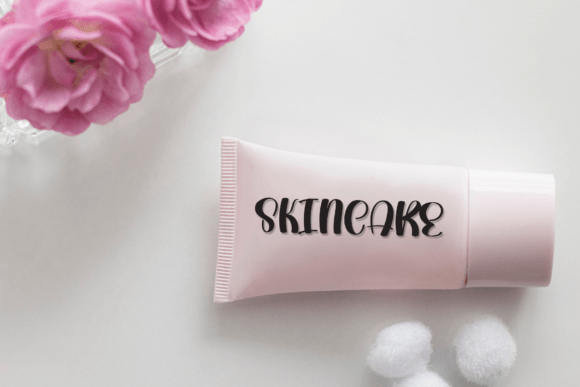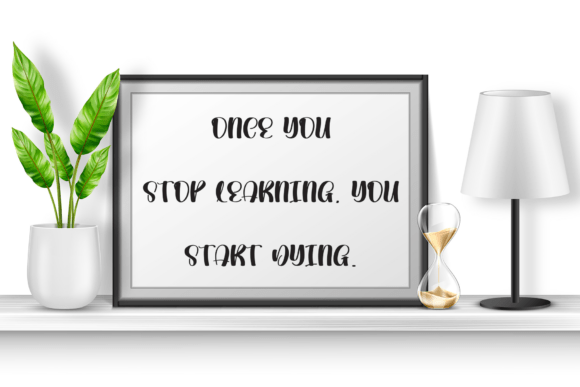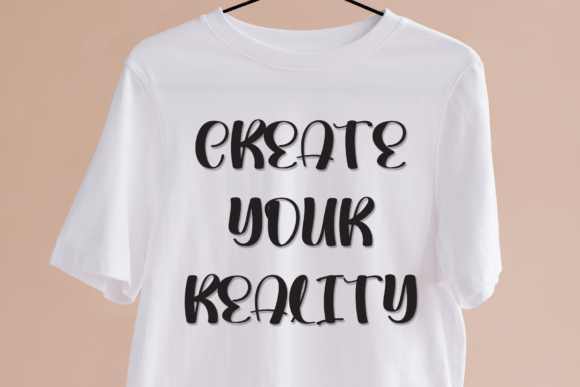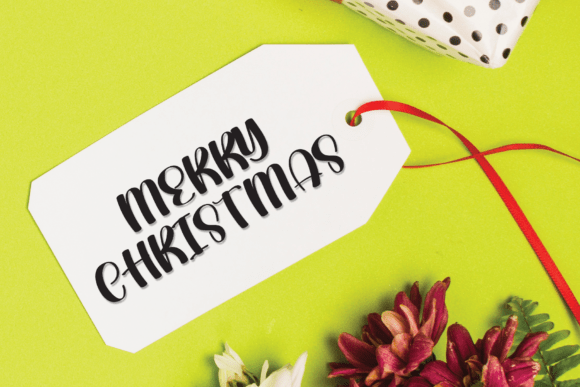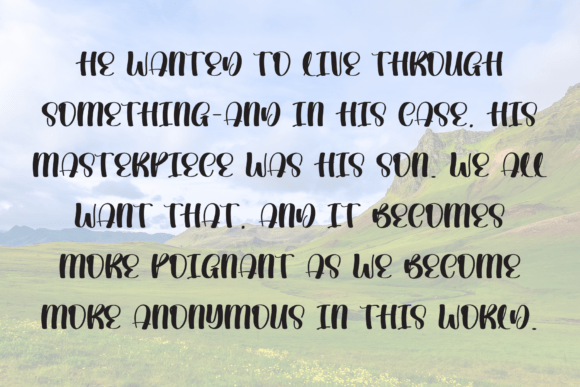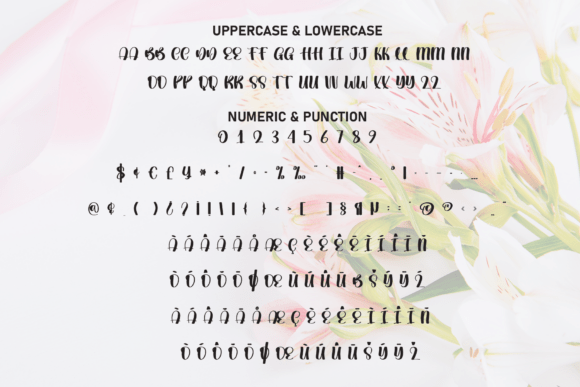
Introduction to Lily Lovely Font
Introducing a delightful and charming handwritten display font that exudes a sense of friendliness and whimsy.
Its bubbly and playful characteristics make it the perfect choice for crafting enchanting wedding invitations, heartwarming cards, or any design scheme that could benefit from an injection of fun Dive into a world of creativity with this uniquely sweet font.